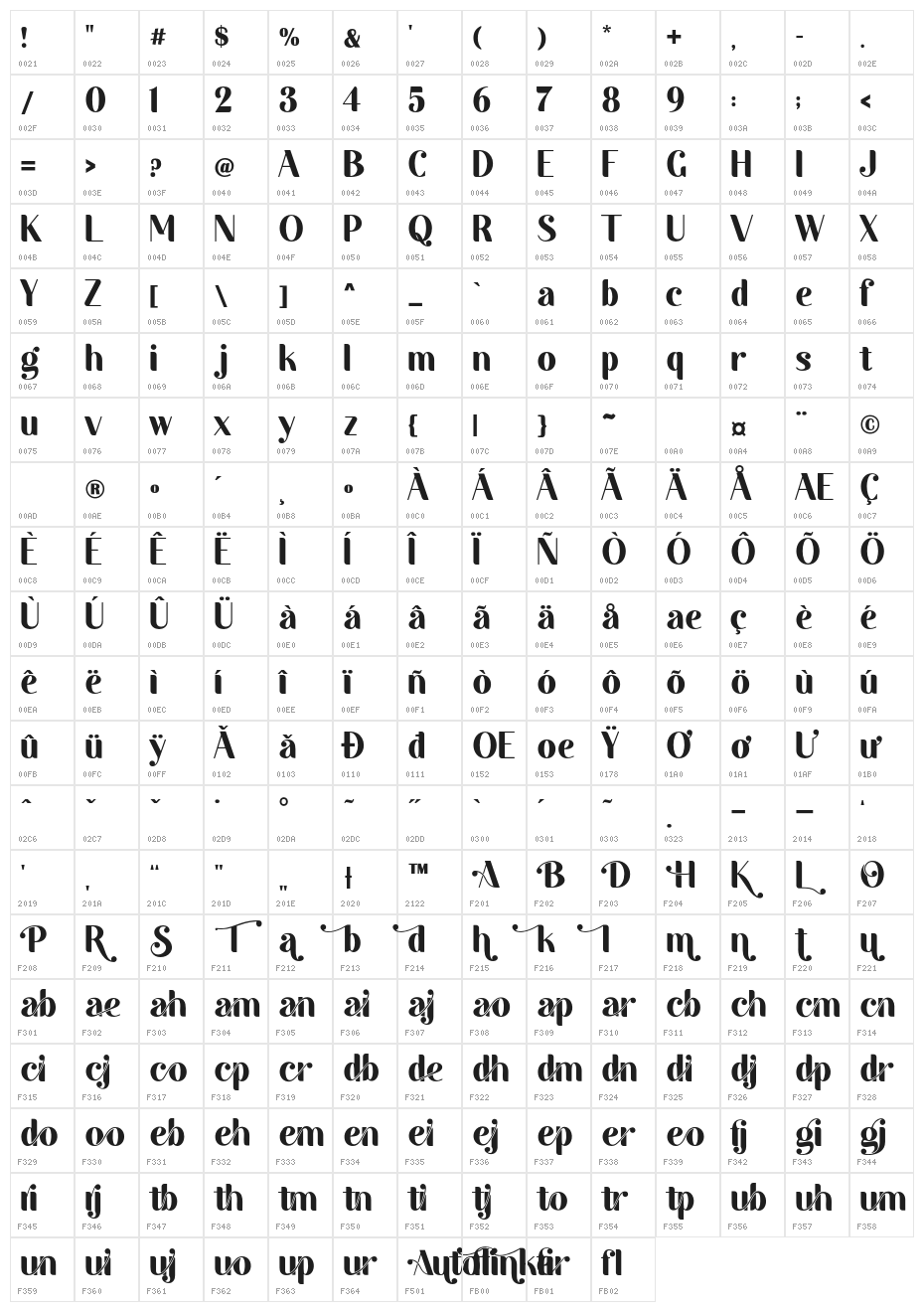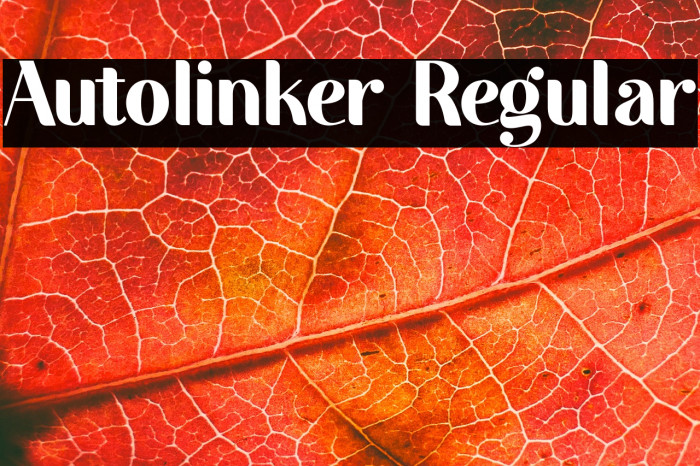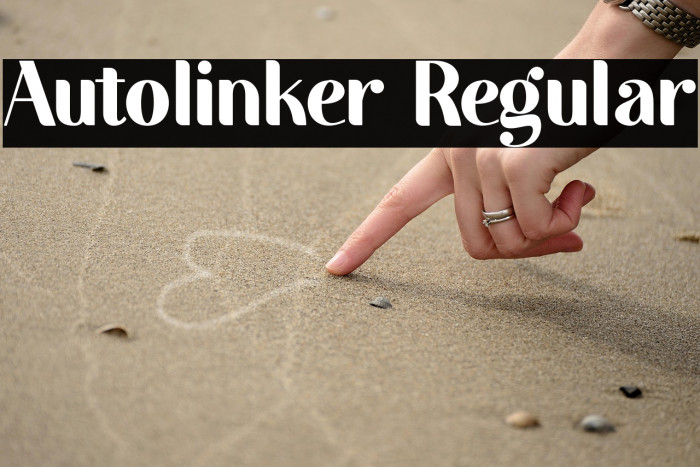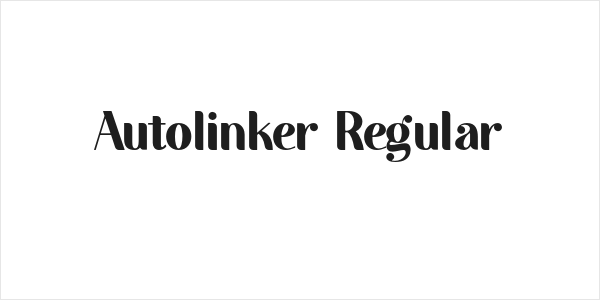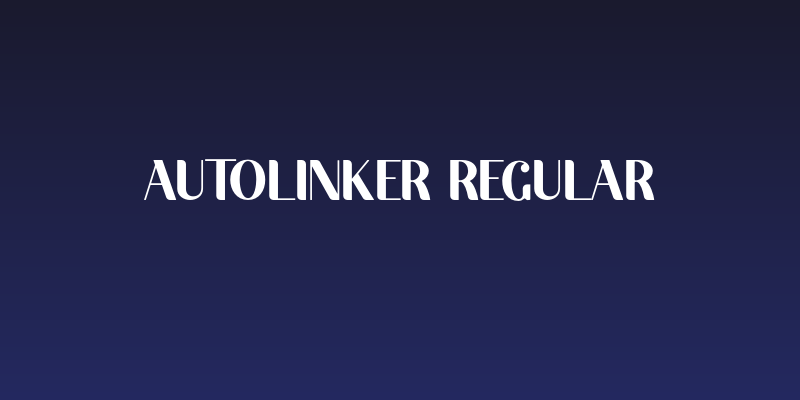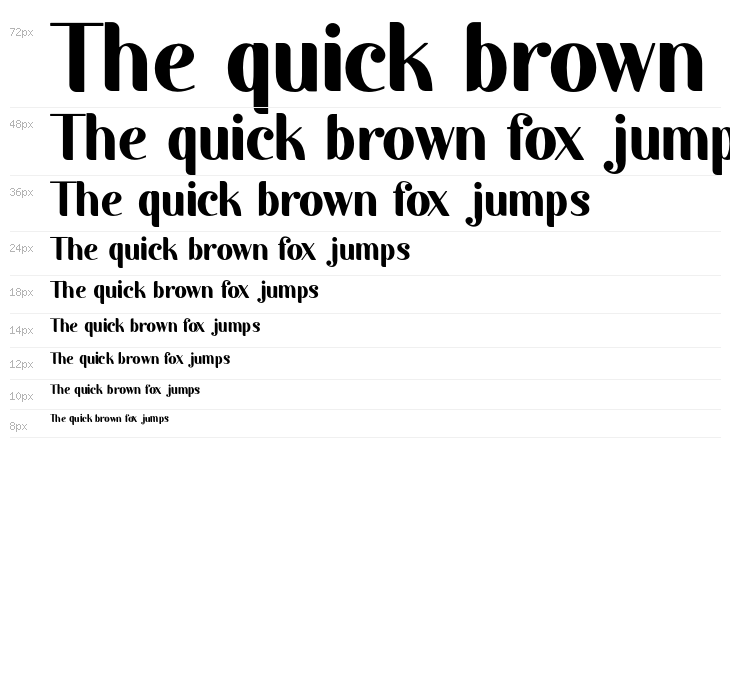
Autolinker Regular Font
Autolinker Regular Description
This font features a bold and dynamic style with a modern twist. The uppercase letters are characterized by their strong vertical lines and subtle curves, creating a sense of movement and energy. The lowercase letters maintain a consistent weight, with rounded edges that add a touch of softness to the overall design. The numerals are bold and clear, making them highly legible. Special characters are well-integrated, maintaining the font's cohesive look. This typeface is versatile, suitable for a variety of design projects that require a contemporary and impactful appearance.
| Use Case | Headlines, Logos, Advertising |
| Proposed Projects | Ideal for branding, advertising, headlines, and digital media projects. |